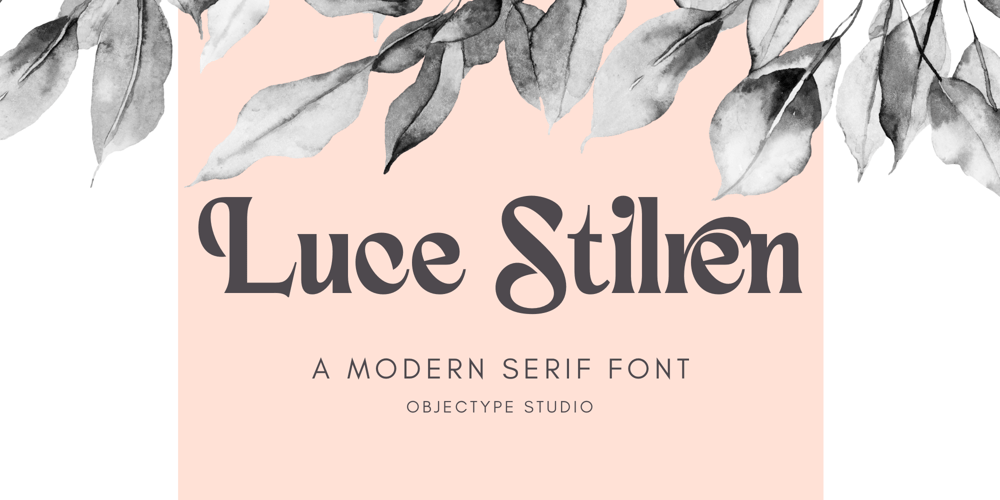
Luce Stilren Font Family was designed by Candi Erwanto and published by Objectype. Luce Stilren contains 1 styles and family package options. Luce Stilren is a serif font with a modern and geometric design from Objectype Studio. With clean lines and bold shapes, this font adds a professional and contemporary touch to any design project.The main feature of this font is its flexibility. Whether you’re working on a branding project, logo design, magazine headlines, or wedding invitations, Luce Stilren is the perfect choice. This font is designed to provide reading comfort, making it a great choice for both print and digital publications.Luce Stilren supports various languages and includes various typographic features such as ligatures, old-style numbers, and letter-style variations. With these possibilities, you can customize the font according to your needs.With Luce Stilren, you can take your designs to the next level. Get it now and start creating!